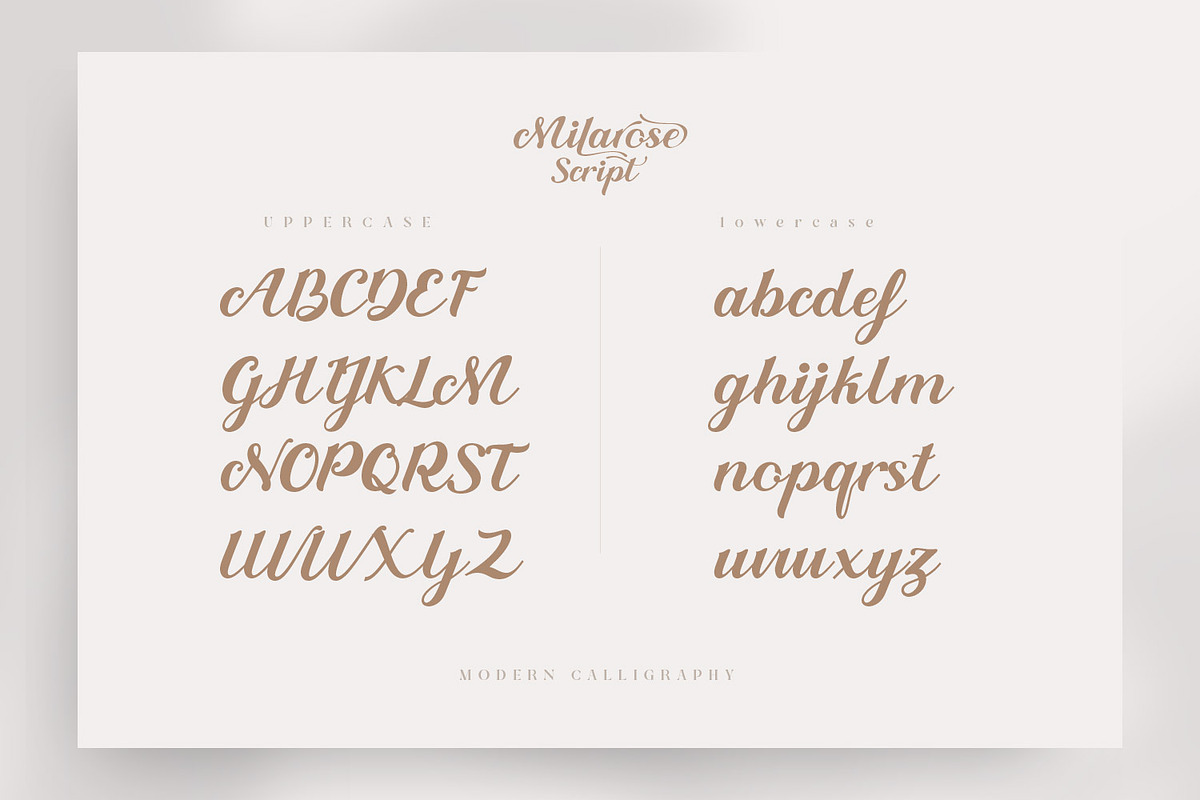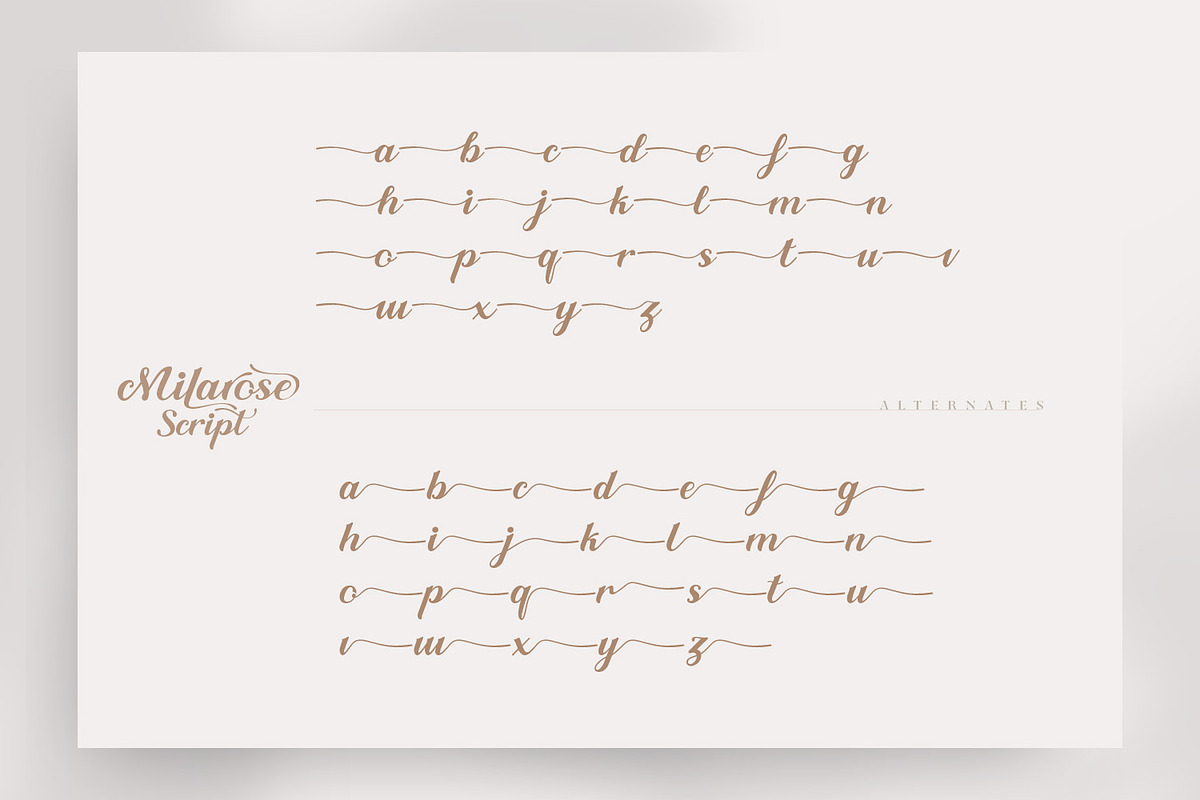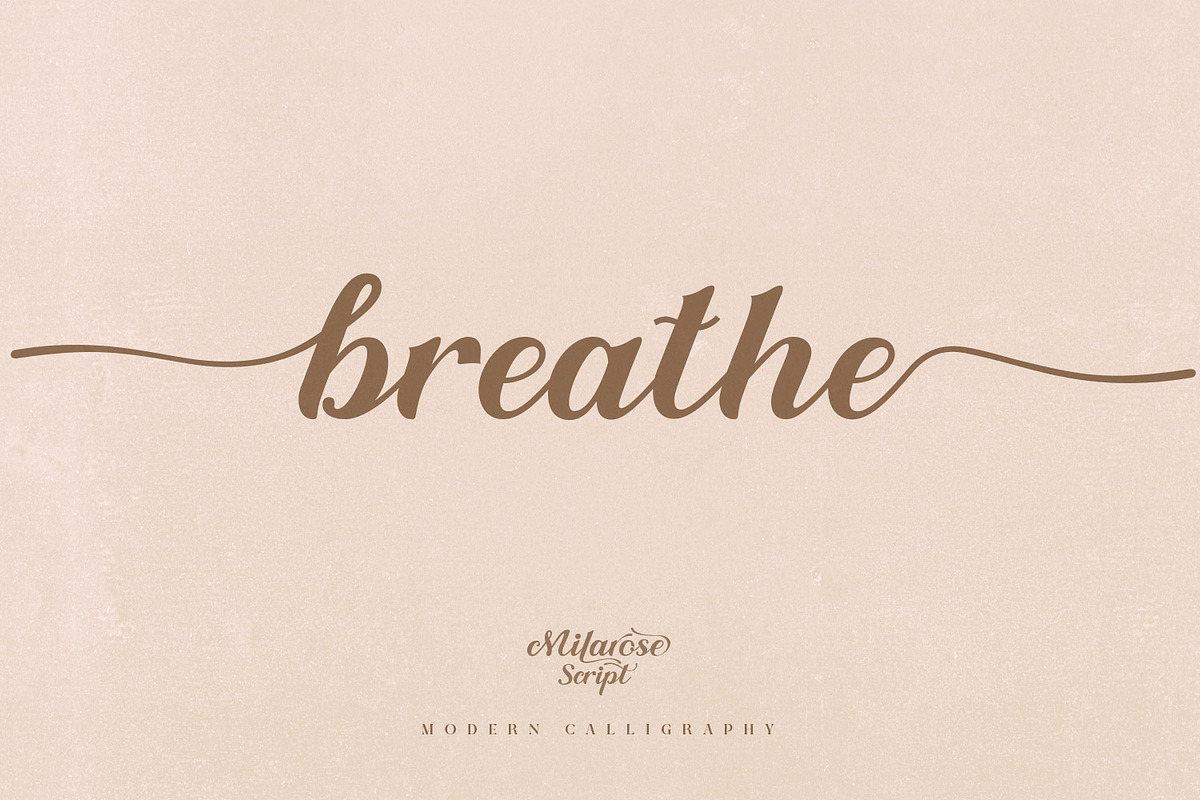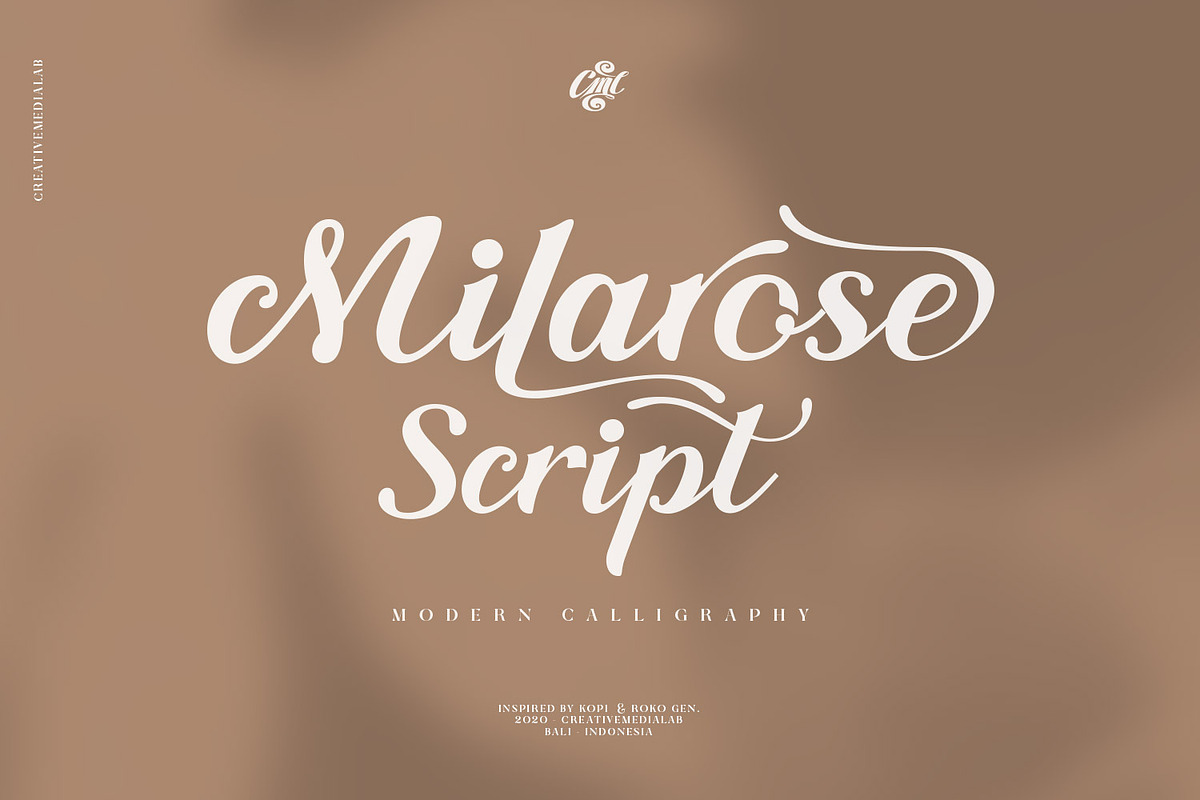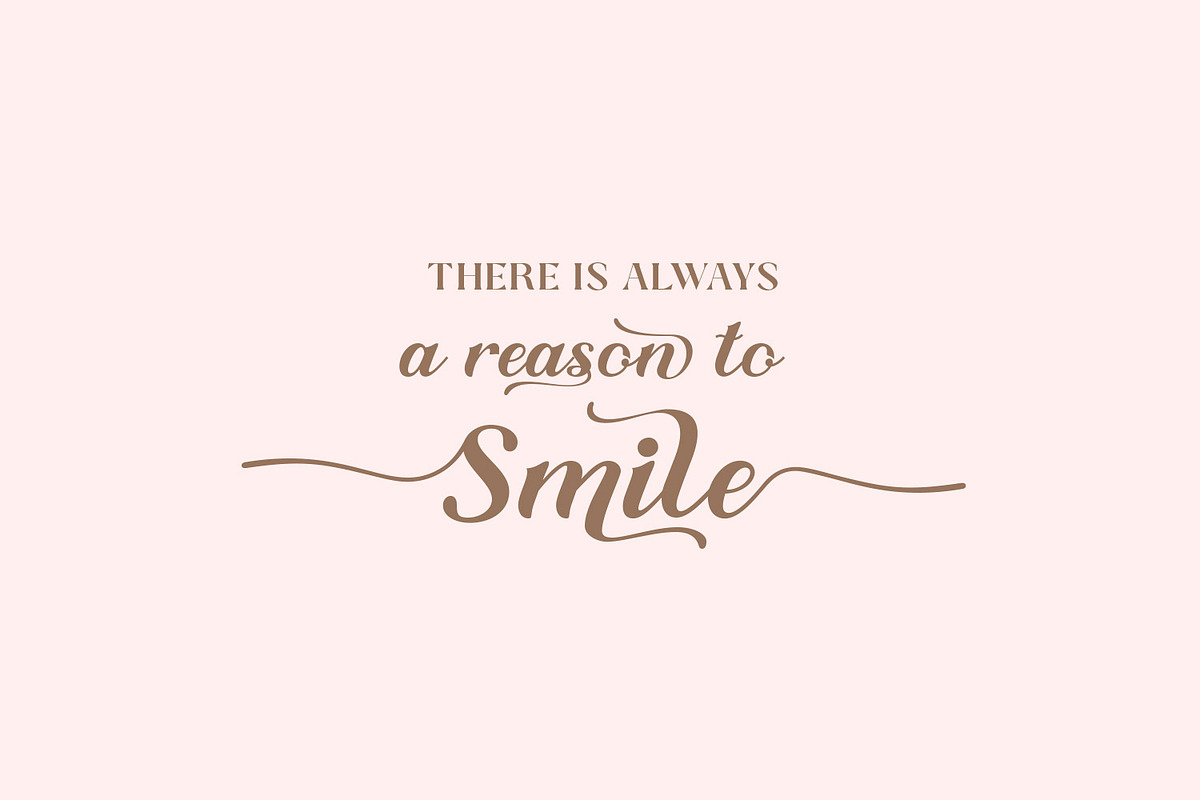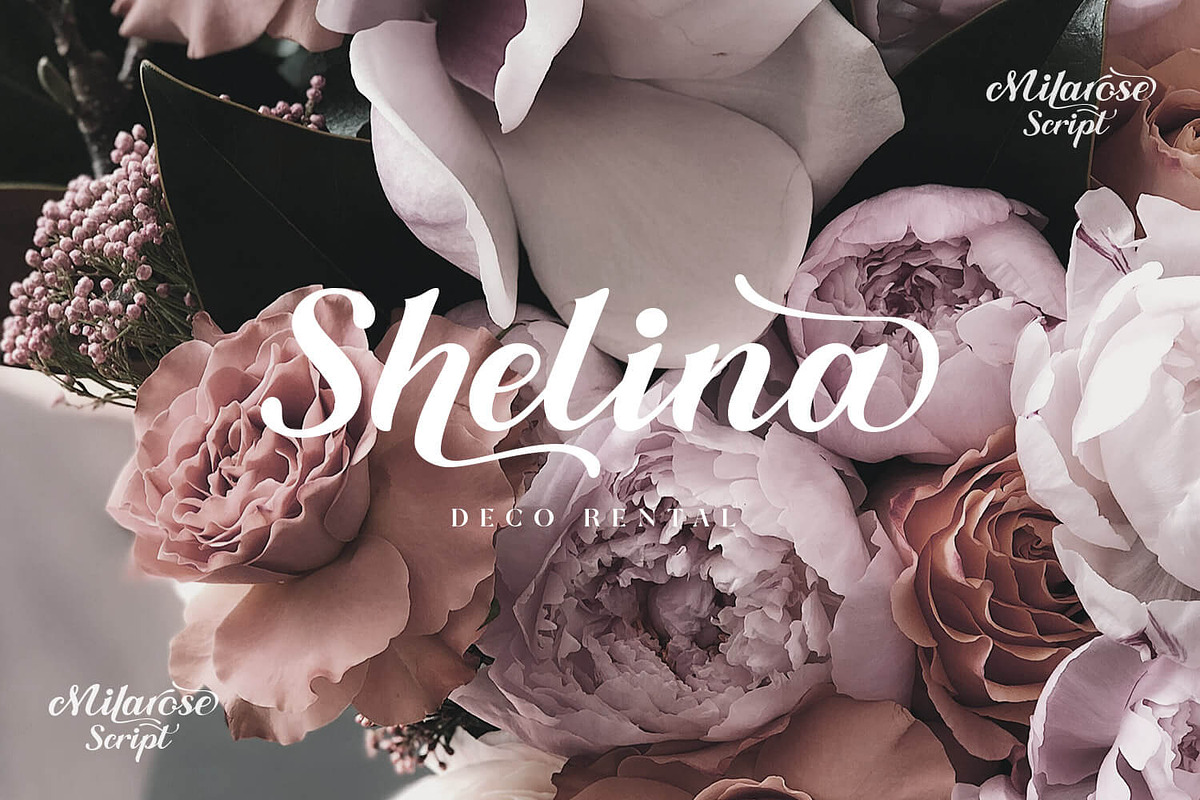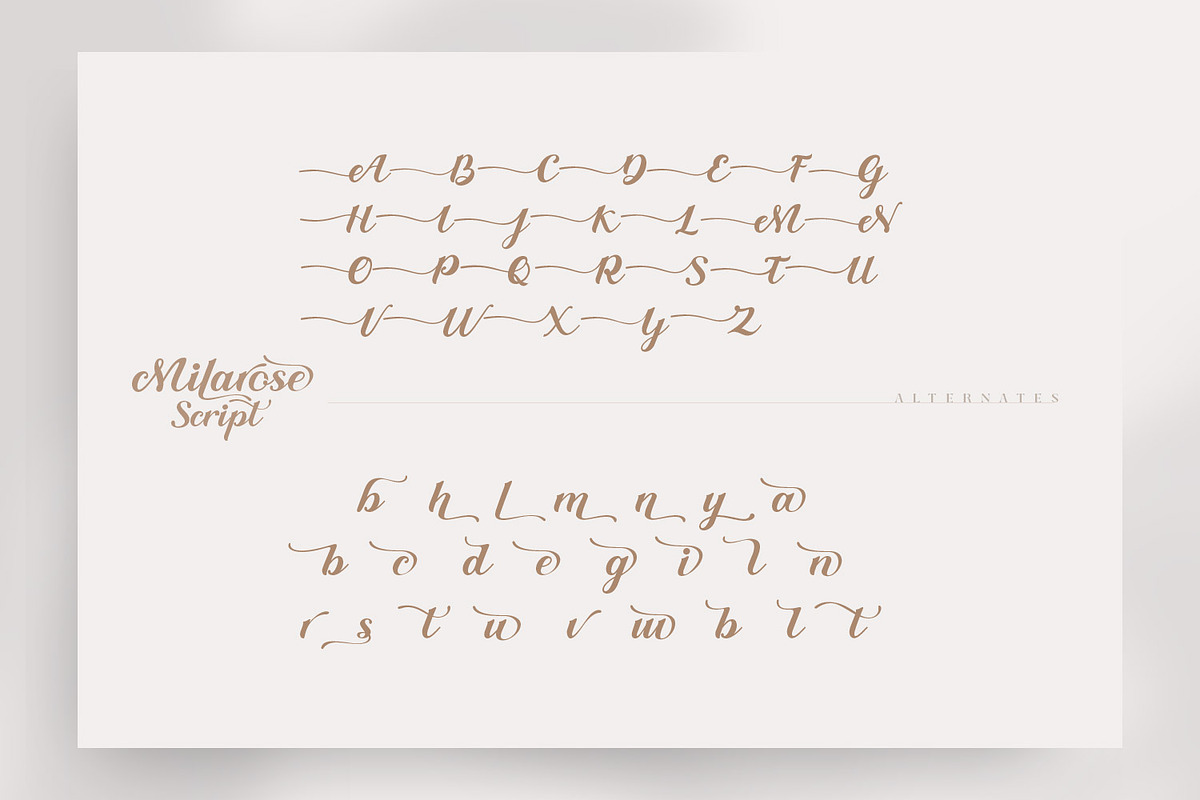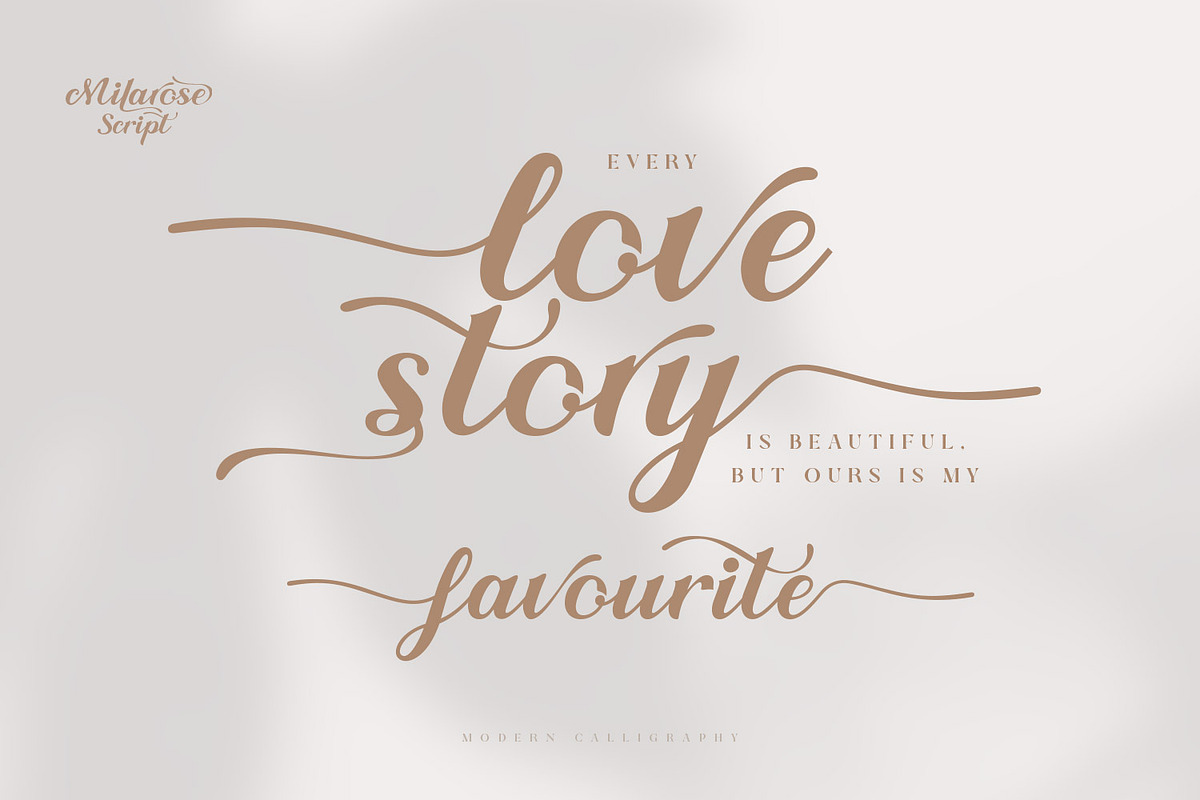
Milarose Script - Romantic Font
Milarose script is pretty, elegant and romantic script. It has beginning, ending and various alternates to arrange. Suitable for romantic theme design, like wedding quotes, stationery, books, and more. it perfect to pair with any serif font, we recommend using Losta Masta serif family which used on preview above.
- It has beginning, ending and various alternates to arrange.